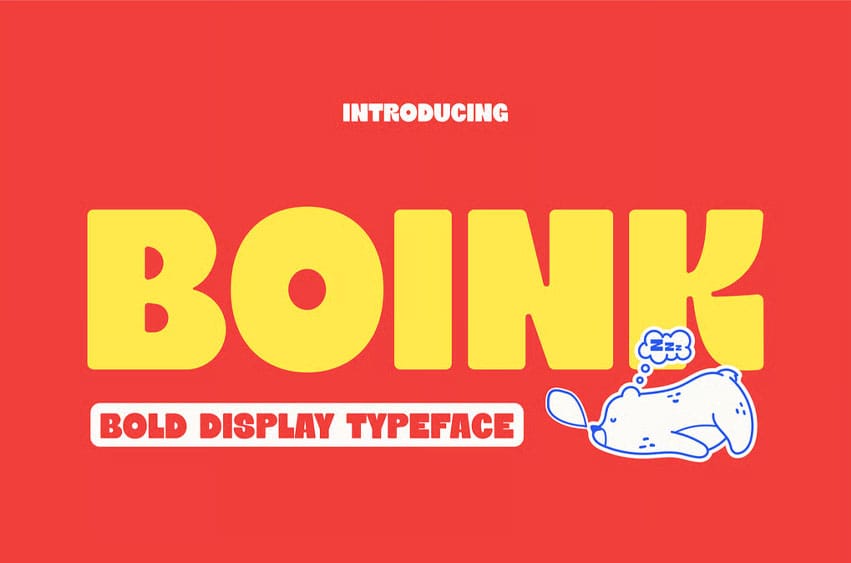
Boink Playful Font is the playful, bold display typeface with bouncy baselines that injects energetic fun into designs, featuring rounded letterforms for a whimsical, approachable character. This font radiates a bold, playful vibe ideal for vibrant social media campaigns, matches perfectly with youth-oriented markets like toy brands or casual eateries, highlights its rounded, expressive structure, and shines in use cases such as branding logos, promotional packaging, and eye-catching posters.
Imagine transforming a kids’ book cover or a gaming app UI into an instant attention-grabber with BOINK’s kid-friendly tone, where its whimsical energy connects directly to the buyer’s goal of sparking joy and engagement in young audiences through bold headlines and playful editorial layouts.
Key Features : Playful and Captivating Design
- Rounded Contours: Soft edges for approachable, charming family branding.
- Bold Weight: Heavy strokes for standout visibility in headlines and posters.
- Bouncy Baseline: Rhythmic alignment adds lively energy to graphics and signage.